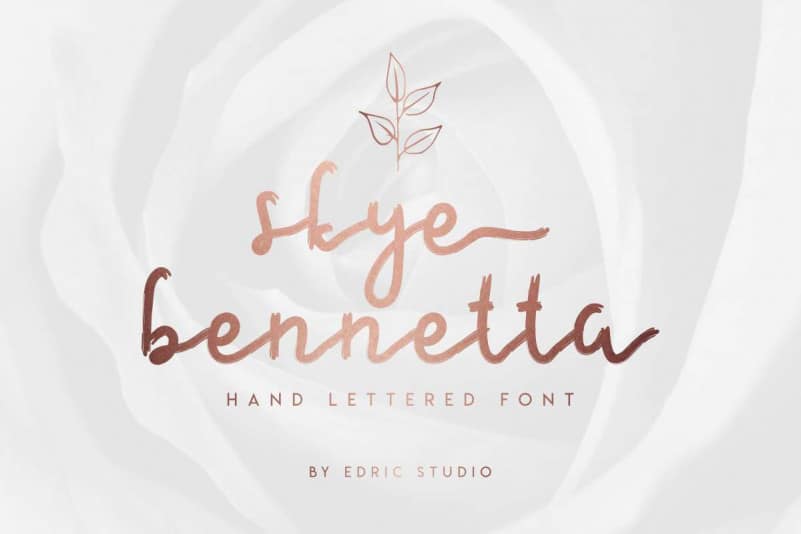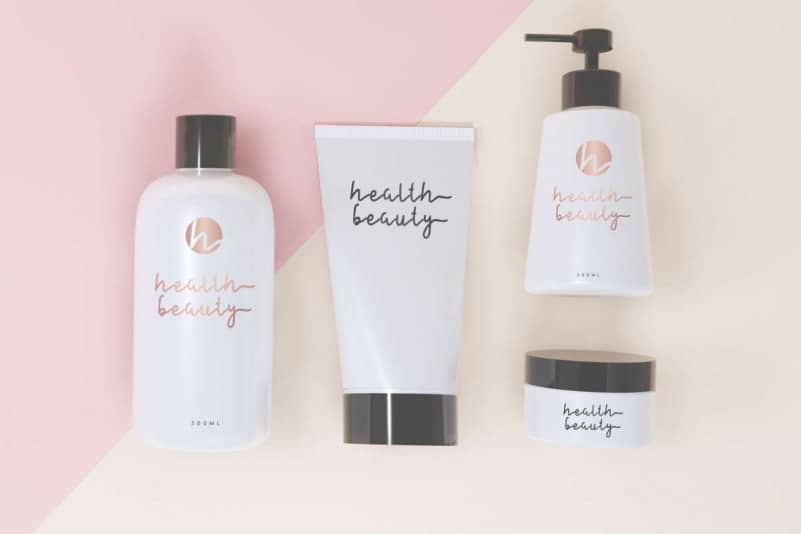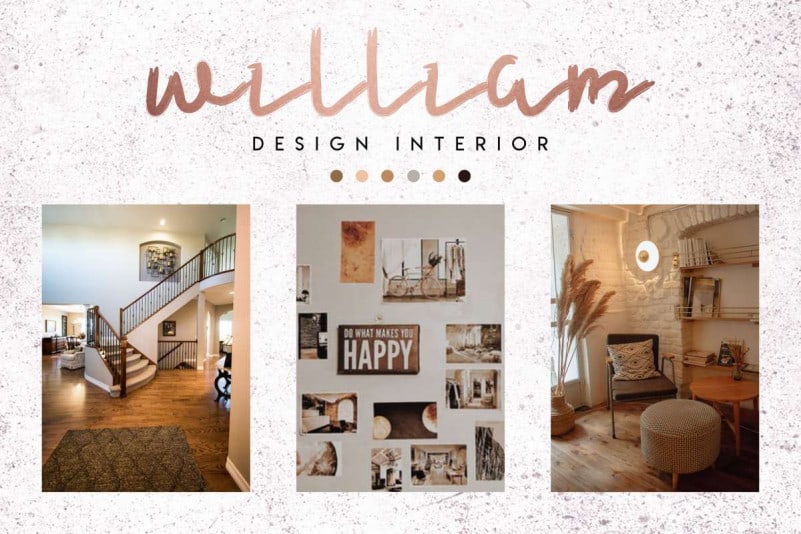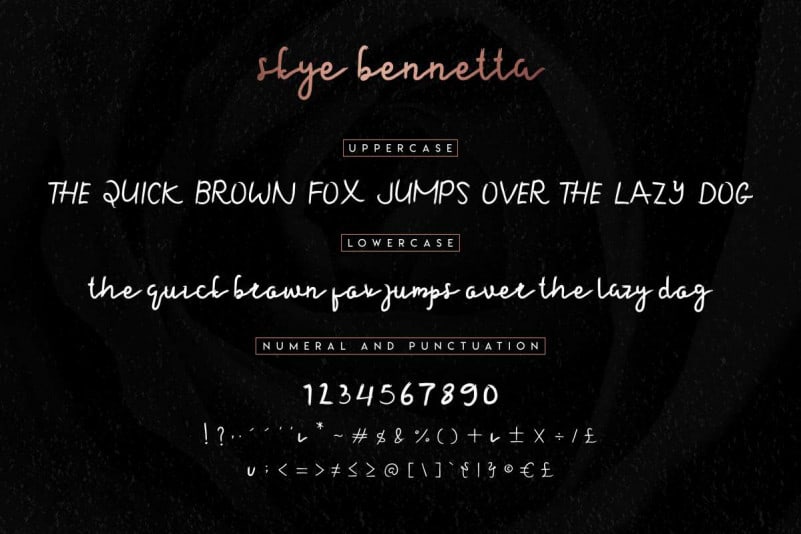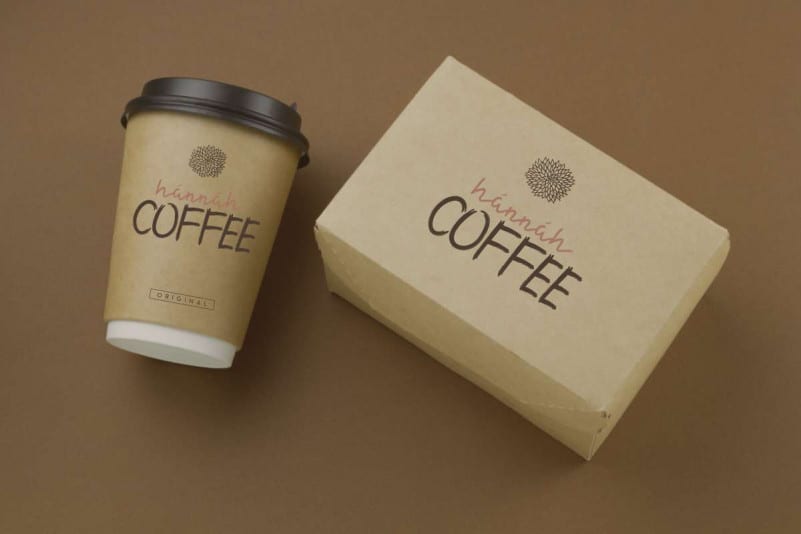
Skye Bennetta Handwritten Font
Skye Bennetta Handwritten Font is an exclusive handwriting script typeface with brush style. This font has a stunning characters set, perfectly managed with well spaced and kerning. The theme style of this font will elegant, vintage, stylish, sophisticated and classic brush calligraphic style.
Skye Bennetta Handwritten Font will be great for any projects including : branding, logo, stationery, business card, signage, flyer, brochure etc. Almost all industries will be match for this typeface: wedding, events, real estate, architect, law firm, florist, gardening, makeup artist, travel, hotel, musician etc